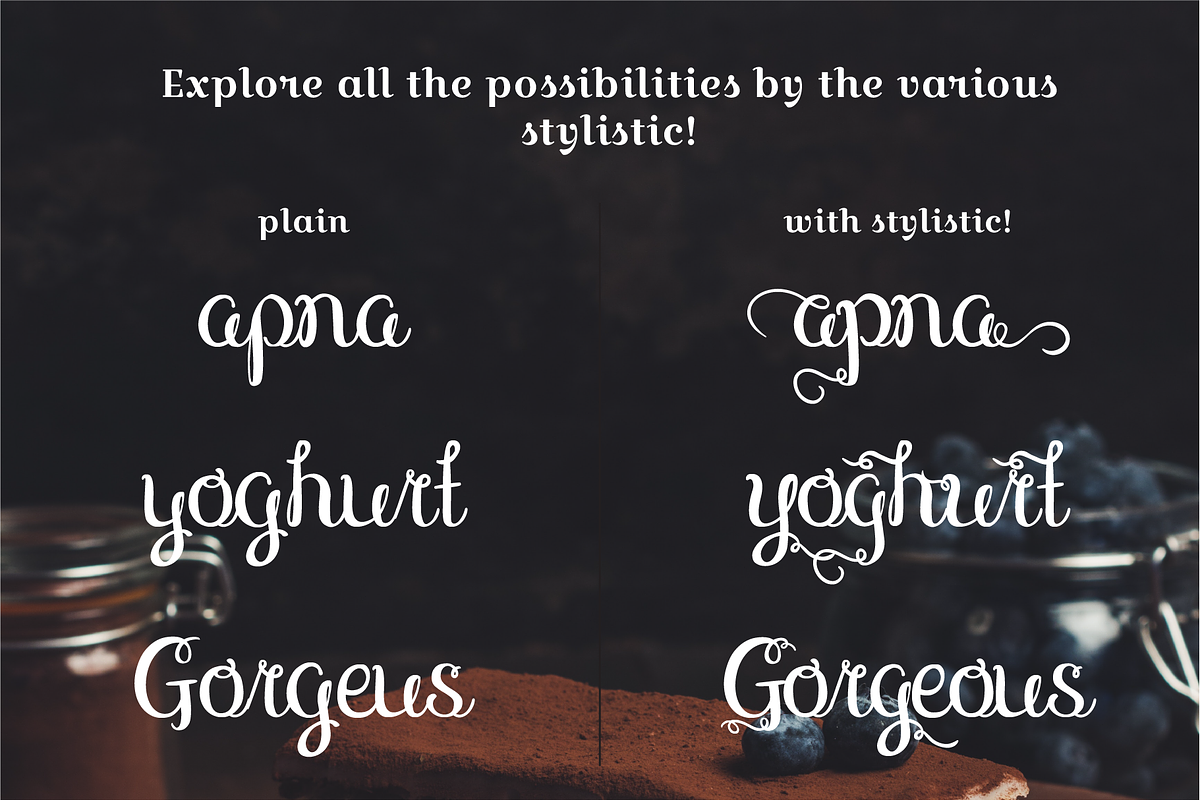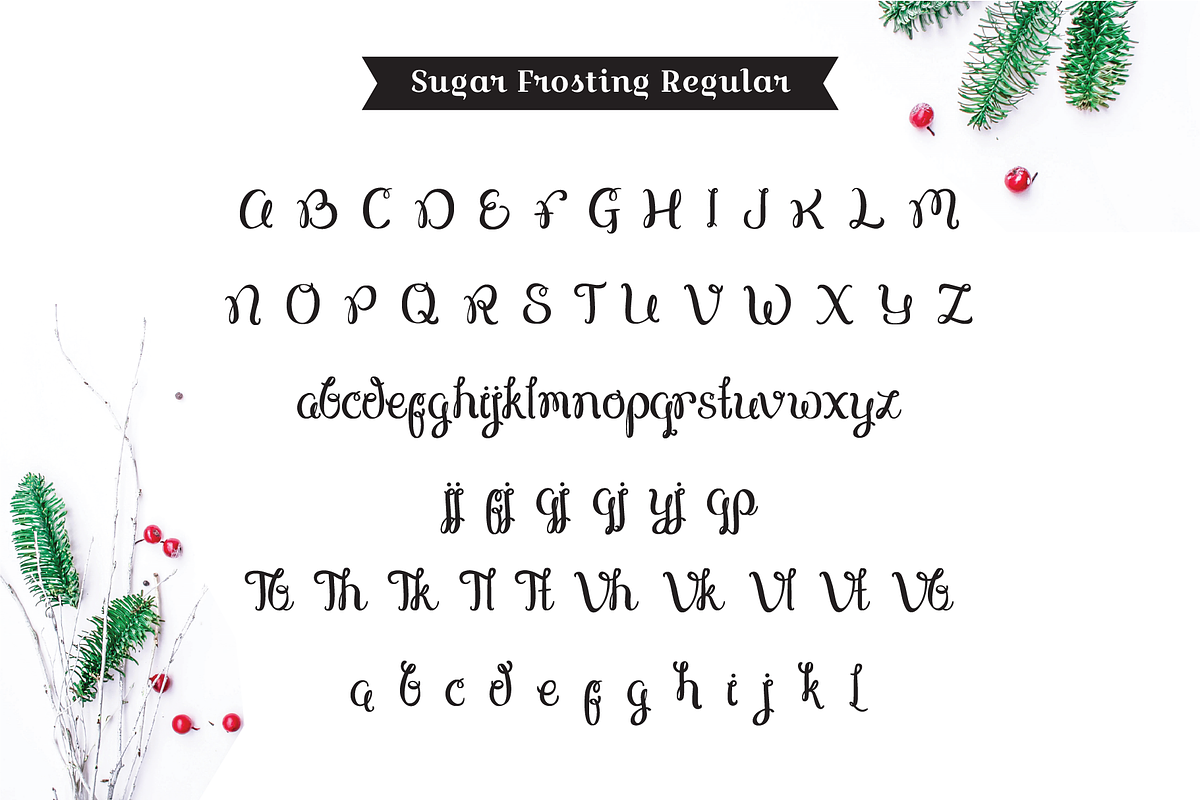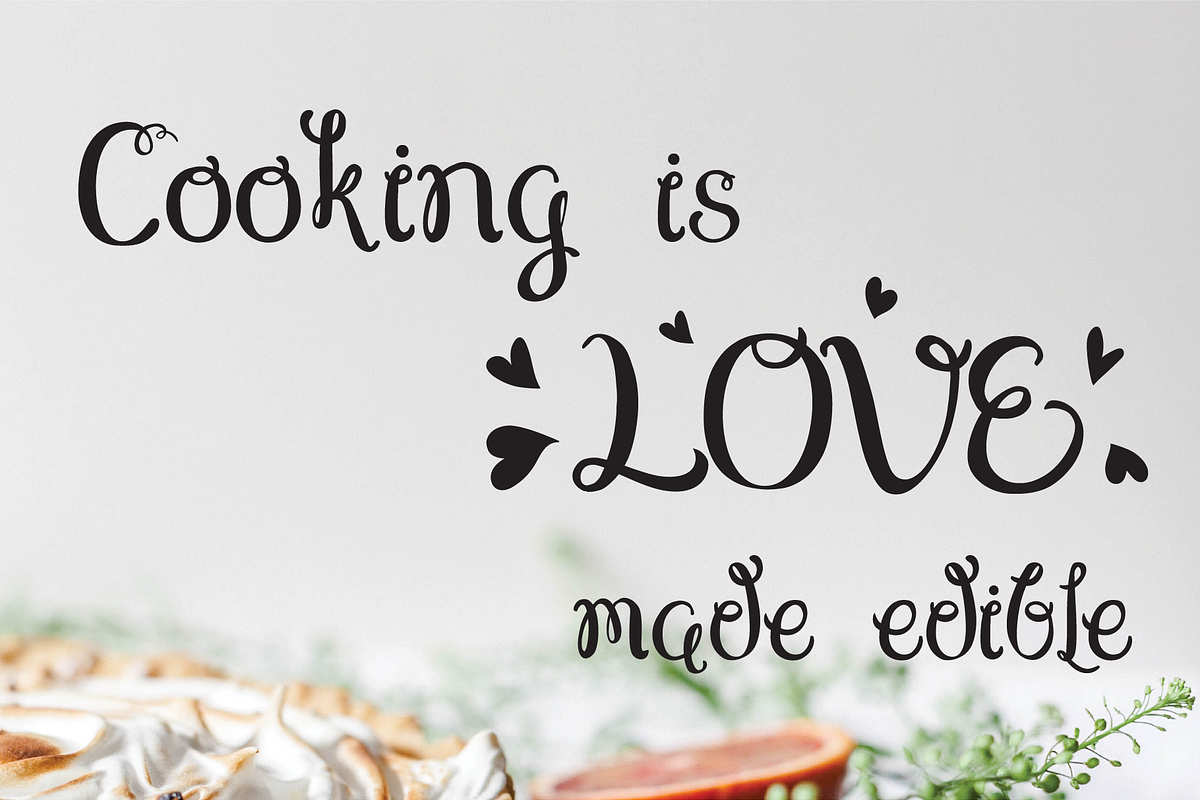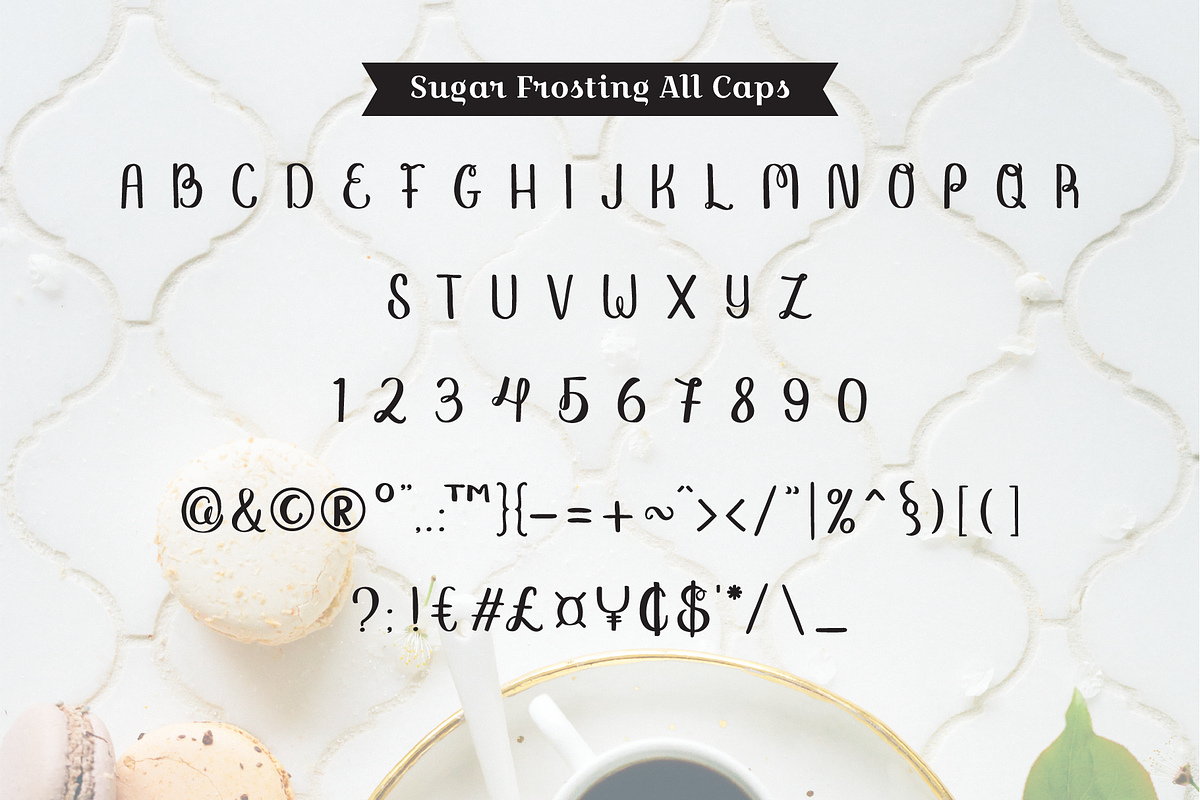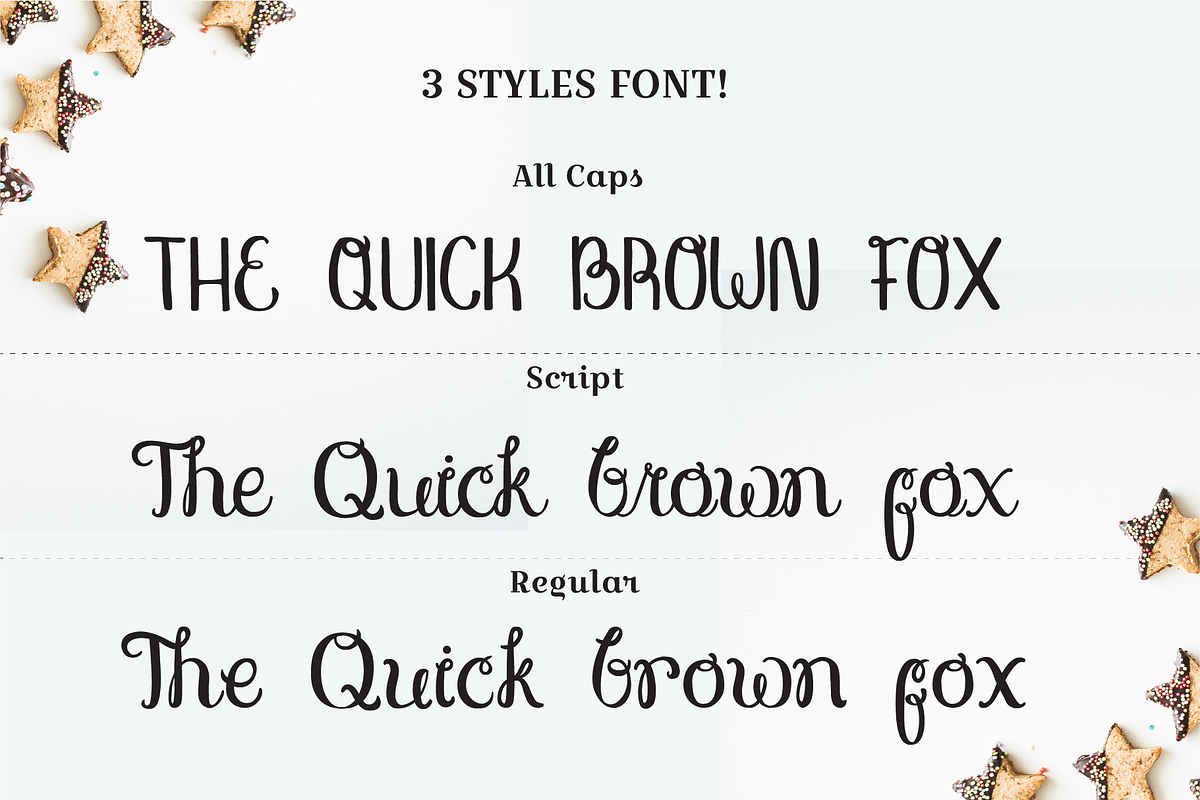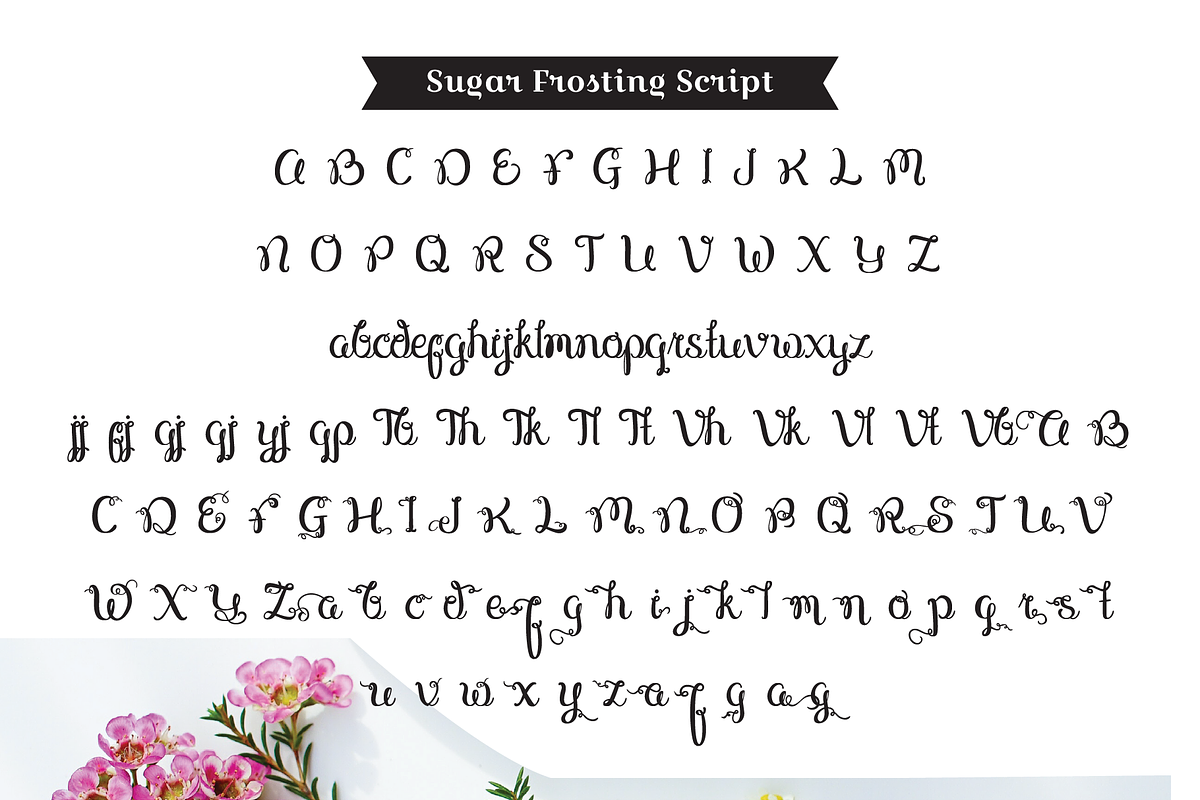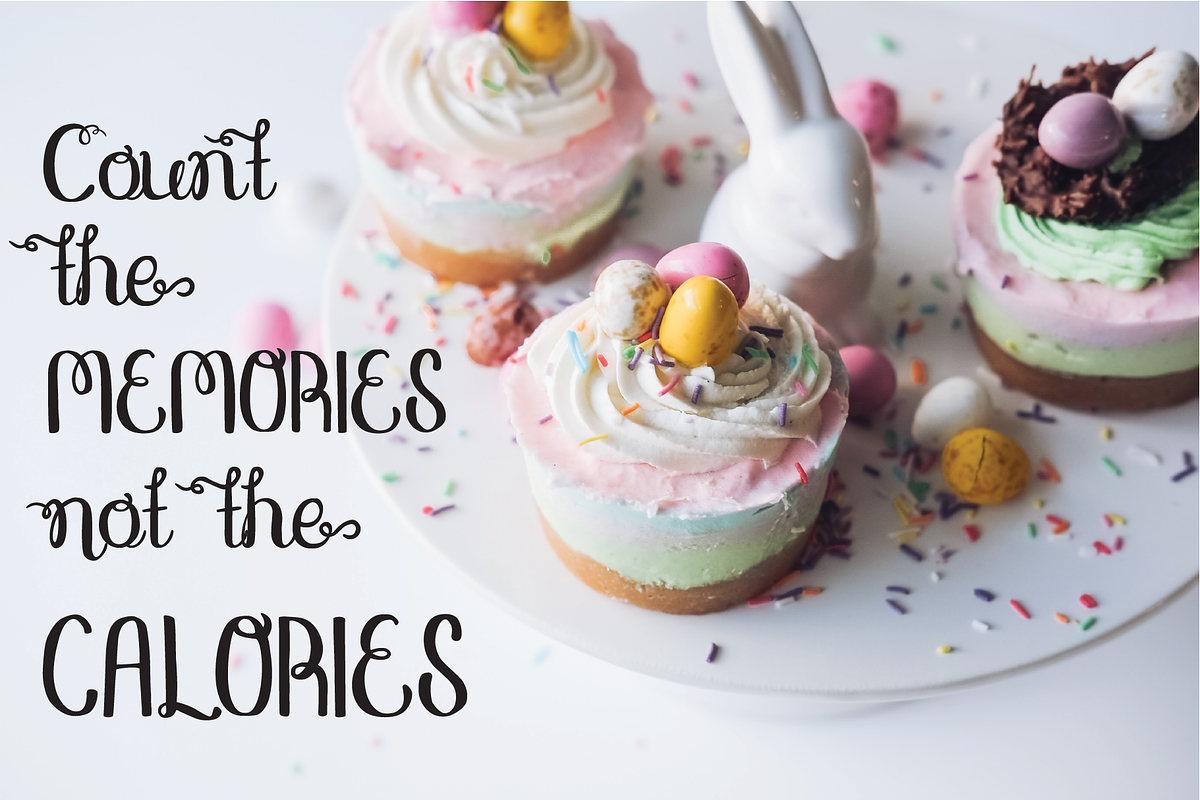
Sugar Frosting Font Trio
Hello! Introducing Sugar Frosting Font Trio!
It is a set that consists of three fonts with sweet and lovely looking handwriting.
Sugar Frosting All Caps, which is a font with handwritten capital letters.
Sugar Frosting Script, which is a script font, with lotsss of swirly stylistic that you can costumize as you like.
Sugar Frosting Regular, which is a single version of the Sugar Frosting Script. It also completed with ligatures and stylistics.
Sugar Frosting Font Trio by KnickKnacks fits naturally into Branding, posters, packaging, typography.